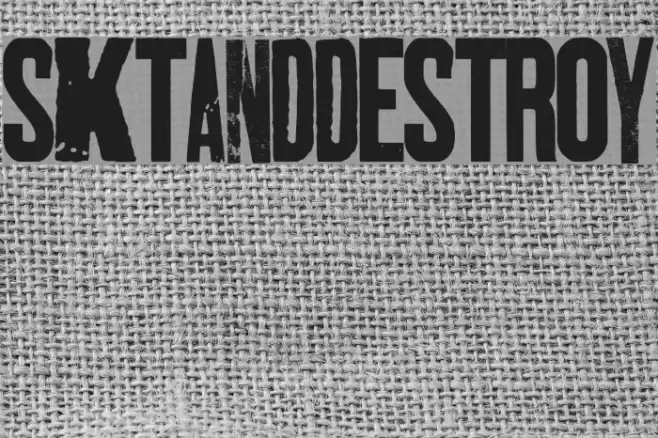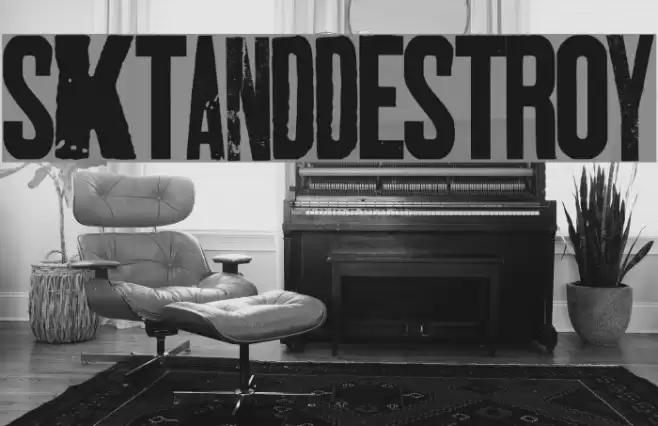
SKTANDDESTROY Font
SKTANDDESTROY Description
This font features a bold, distressed style with a grunge aesthetic. The uppercase letters are heavily textured, giving them a worn, rugged appearance. The characters are tightly spaced, contributing to a compact and impactful look. The font's design is reminiscent of vintage posters or rock band logos, with a strong emphasis on boldness and character. The texture varies across different letters, adding a dynamic and unpredictable element to the overall style. This font is ideal for projects that require a strong visual impact and a sense of edginess or rebellion.
A bold, distressed font with a grunge aesthetic and tight spacing from Uncategorized fonts.
- Proposed Projects: Perfect for music album covers, posters, logos, and any design needing a bold, edgy look.
- Character Spacing: Tight
- Overall Style: Vintage, Grunge